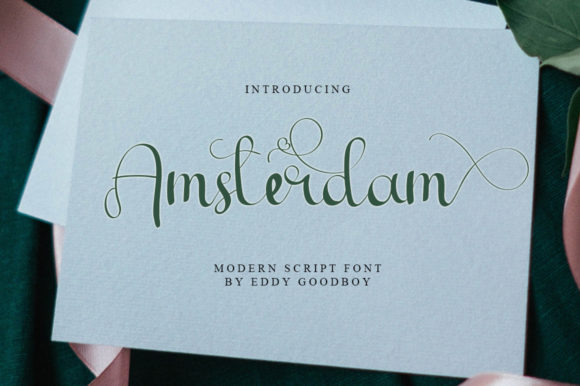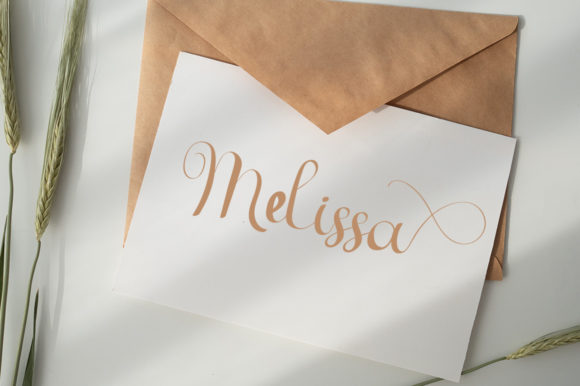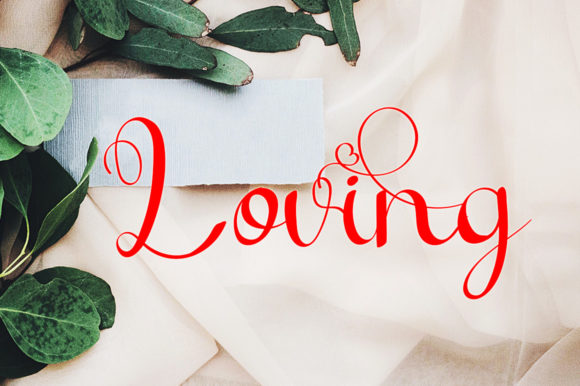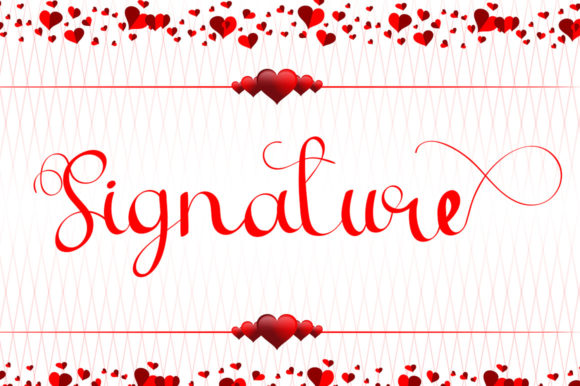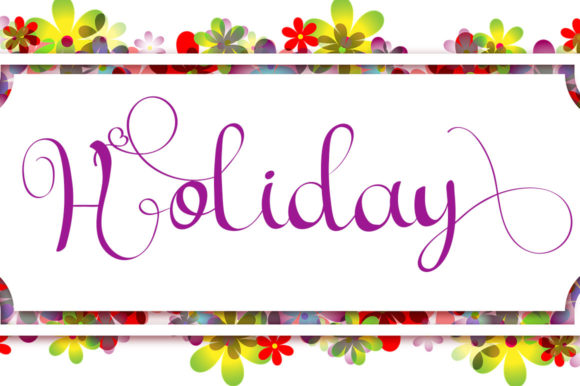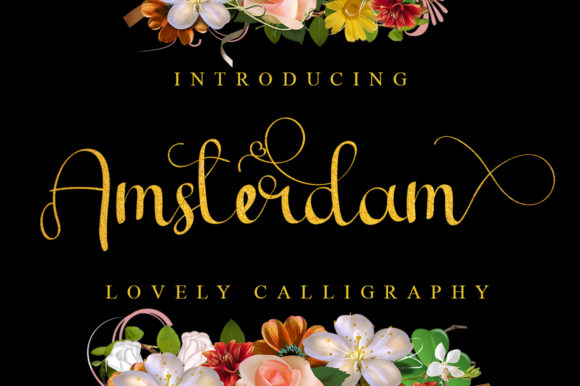
Introducing Amsterdam Font: Elevate Your Designs with Sophistication and Elegance
In the world of typography, a font can make or break a design. For designers and crafters seeking to infuse their projects with a touch of luxury and refinement, look no further than the Amsterdam Font. This chic, refined script font is the epitome of sophistication and elegance, making it the perfect match for any project that demands high-end style.
The Essence of Amsterdam Font
Amsterdam Font is a meticulously crafted script font that exudes an air of elegance and poise. Its fluid strokes and carefully designed letterforms create a harmonious visual experience that is both captivating and refined. Whether you’re working on a branding project, packaging design, or digital content, Amsterdam Font is sure to elevate your work to new heights.
Stylish Alternates and Ligatures
One of the standout features of Amsterdam Font is its extensive range of stylish alternates and ligatures. These typographic elements allow designers to add an extra layer of creativity and flair to their work, ensuring that every project stands out from the crowd. With Amsterdam Font, you can effortlessly swap out letters and words with elegant alternatives, creating a unique and visually stunning design that showcases your brand’s personality.
Amsterdam Font’s versatility makes it an excellent choice for a wide range of design applications. From:
- Branding and Logos: Create a lasting impression with a custom logo that embodies your brand’s values and aesthetic.
- Packaging Design: Elevate your product packaging with sophisticated typography that stands out on store shelves.
- Digital Content: Enhance your website, social media, or blog with elegant headings and body text that engage your audience.
- Stationery and Invitations: Add a touch of luxury to your business cards, letters, and event invitations.
Why Choose Amsterdam Font?
With so many fonts available, why choose Amsterdam Font for your next project? Here are just a few compelling reasons:
- Unique and Memorable: Amsterdam Font’s distinctive style ensures your design will be remembered and noticed.
- Highly Versatile: Seamlessly integrate Amsterdam Font into various design applications, from print to digital.
- Elegant and Refined: Convey sophistication and luxury with a font that exudes high-end quality.
- Easy to Read: Despite its elegant nature, Amsterdam Font remains highly legible, making it perfect for body text and headings.
Amsterdam Font is a game-changer for designers and crafters seeking to elevate their work with a touch of sophistication and elegance. With its stylish alternates, ligatures, and refined script style, this font is poised to become a go-to choice for projects that demand high-end typography. Discover the beauty of Amsterdam Font and transform your designs today.
- Sophisticated and elegant script font
- Stylish alternates and ligatures
- Highly versatile for various design applications
- Easy to read and highly legible
- Perfect for branding, packaging, digital content, and more